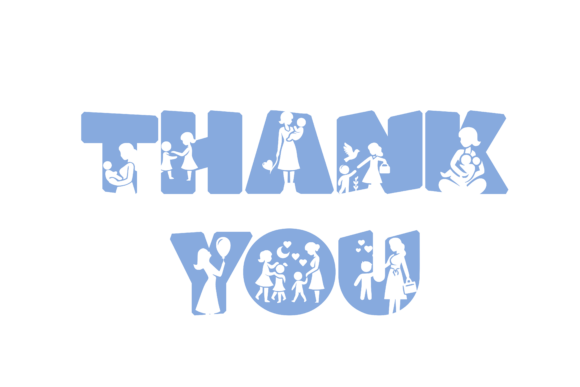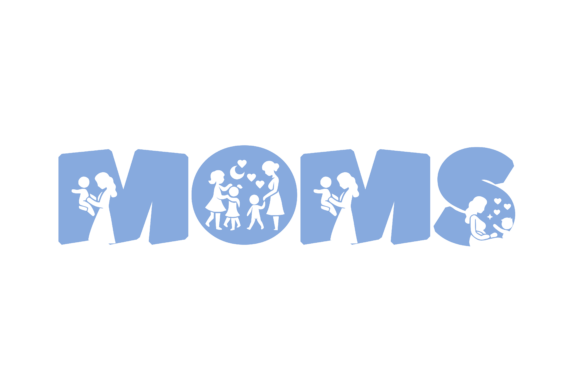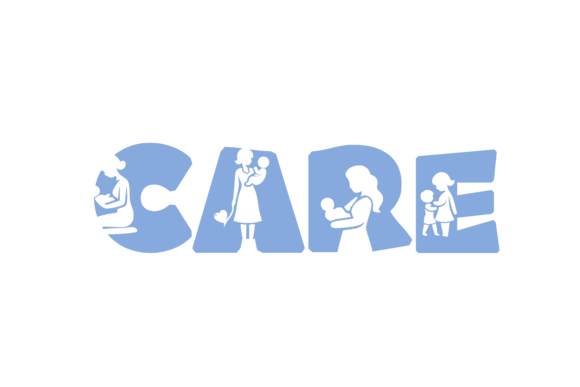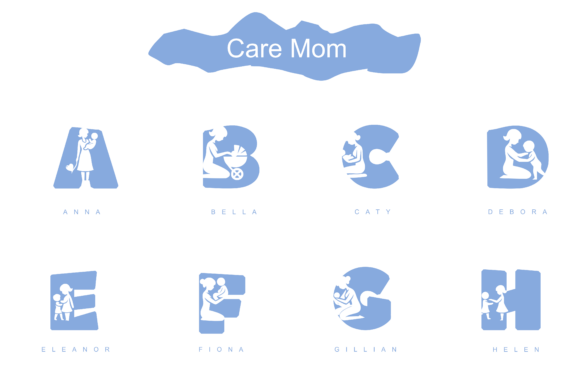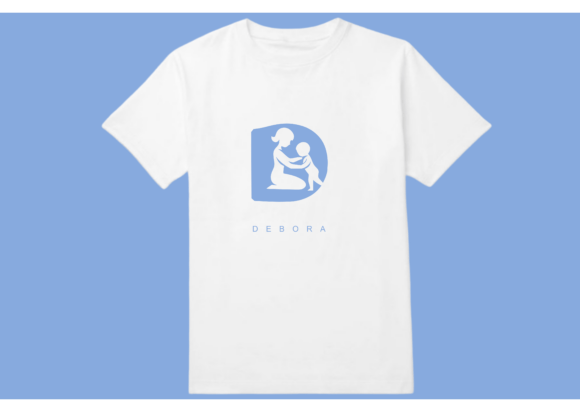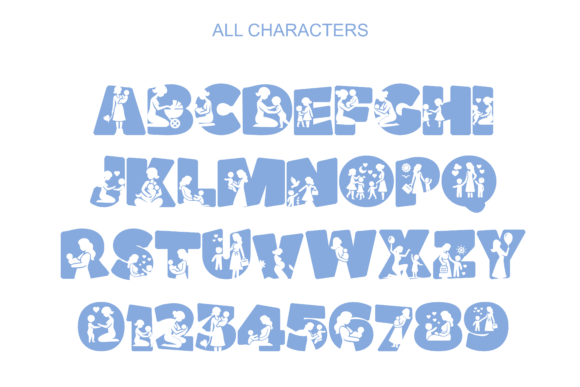
Unlock Endless Creativity with Care Mom Font: The Ultimate Game-Changer for Designers and Crafters
Are you tired of using the same old fonts that seem to suck the life out of your creative projects? Look no further! Introducing the Care Mom font, a revolutionary typeface that embodies persistent vibrancy and unlocks endless dimensions for boundless creative discovery. Meet Welcome Fairy, a skillfully assembled font designed to heighten your artistic capabilities, instilling a sense of depth and liveliness and broadening your imaginative scope.
The Birth of a Creative Powerhouse: Care Mom Font
The Care Mom font is not just a font, it’s an experience. It’s a carefully crafted typeface that combines brazen yet bewitching charm to ignite your artistic flair. With its unique buoyancy, Care Mom establishes a lively rhythm, guiding your creative exploration through untouched territories of inspiration. Whether you’re a designer, crafter, or artist, this font is designed to turbocharge your creative odyssey and take your work to the next level.
Unleash Your Creativity with Welcome Fairy
Welcome Fairy is the brainchild of a meticulous design process that aimed to create a font that not only looks great but also feels amazing to use. This skillfully assembled typeface is designed to heighten your artistic capabilities, instilling a sense of depth and liveliness and broadening your imaginative scope. With Welcome Fairy, you can:
- Create stunning visual content that captures the attention of your audience
- Add a touch of personality to your designs and crafts
- Experiment with new and exciting creative possibilities
The Science Behind Care Mom Font
So, what makes Care Mom font so special? The answer lies in its unique design. The font features:
- A bold and playful style that’s perfect for making a statement
- A carefully crafted letterform that ensures excellent readability
- A range of weights and styles to suit your creative needs
Why Designers and Crafters Love Care Mom Font
Designers and crafters around the world are raving about Care Mom font, and for good reason. Here are just a few reasons why:
- Endless creative possibilities: With Care Mom font, you can create anything from stunning visual content to beautiful crafts and DIY projects.
- Easy to use: The font is incredibly easy to use, even for those who are new to design or crafting.
- High-quality design: The font is designed with high-quality in mind, ensuring that your projects look professional and polished.
Are you ready to take your creative projects to the next level? Look no further than Care Mom font. With its brazen yet bewitching charm, this font is designed to ignite your artistic flair and guide your creative exploration through untouched territories of inspiration.
- Unique buoyancy: Care Mom font establishes a lively rhythm, guiding your creative exploration through untouched territories of inspiration.
- Skillfully assembled: Welcome Fairy is designed to heighten your artistic capabilities, instilling a sense of depth and liveliness and broadening your imaginative scope.
- Perfect for designers and crafters: Care Mom font is ideal for anyone looking to add a touch of personality to their designs and crafts.
In conclusion, Care Mom font is a game-changer for designers and crafters. With its unique buoyancy, skillful assembly, and perfect blend of style and readability, this font is designed to unlock endless dimensions for boundless creative discovery. So, what are you waiting for? Discover the exhilarating force of Care Mom font today and take your creative projects to the next level!